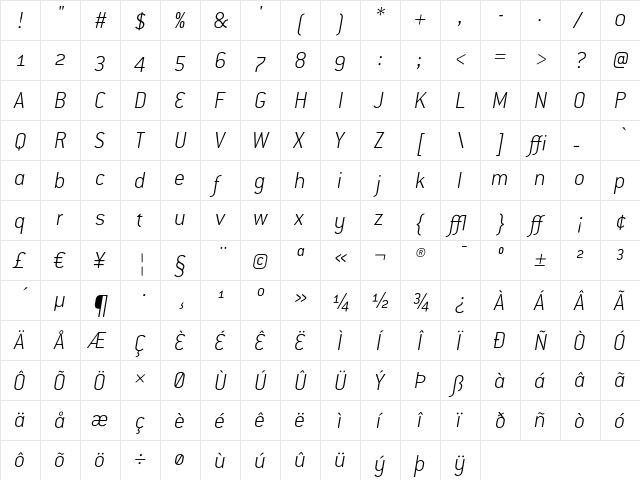
ConduitOSITC ExtraLightItalic Font Preview
Design Context for ConduitOSITC Typeface
ConduitOSITC takes a measured approach to typography — its balanced proportions and neutral character make it a reliable workhorse for both digital and print work. Its italic angle brings a sense of urgency and motion to the letterforms. Its slender proportions lend an understated elegance to any composition. The condensed width makes it efficient for tight spaces without sacrificing legibility.
Pro Tip: Try ConduitOSITC for annotation and caption copy alongside an upright companion — the contrast in angle creates a dynamic but ordered typographic system.